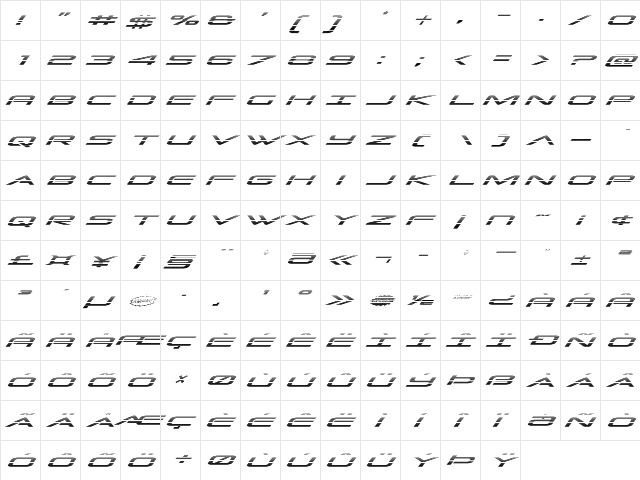
Grand Sport Gradient Italic Italic
Design Context for Grand Sport Gradient Italic Typeface
Grand Sport Gradient Italic brings high-energy athletic personality to the page — its confident, muscular forms are built for impact. The slanted form adds forward momentum and visual energy.
A natural choice for gym brands, fantasy sports, jersey lettering, and action-driven headlines.
Pro Tip: Use Grand Sport Gradient Italic in all-caps headlines where its athletic energy can fully express itself. Pair with a solid, simple sans for supporting text.